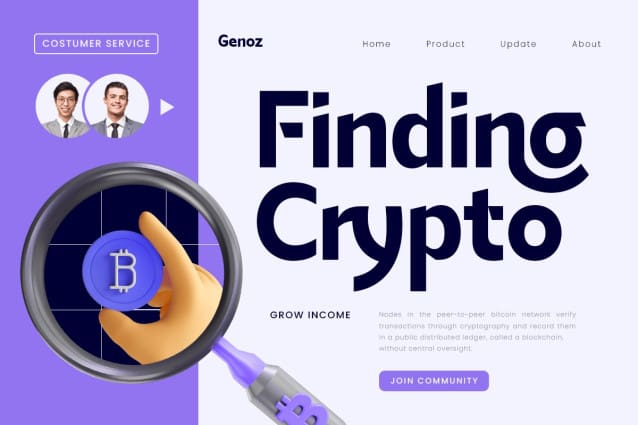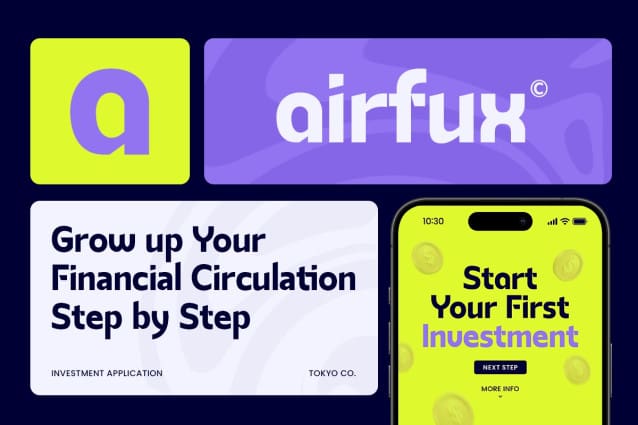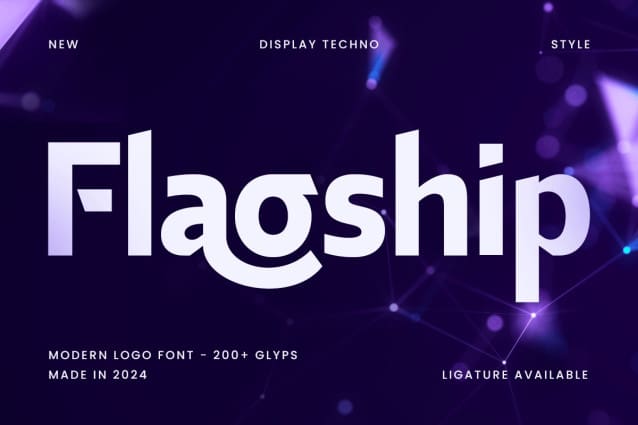
Flagship Font
Flagship Font is a modern logo font designed for sleek and elegant designs. With its minimalist approach and bold lines, this font is ideal for creating professional and striking brand identities. Flagship’s simplicity makes it highly versatile, allowing it to seamlessly integrate into a variety of projects, from Logos to Corporate Branding, ensuring your visuals remain crisp and eye-catching.
Designed with modern aesthetics in mind, Flagship Font is perfect for businesses and brands looking for a clean, contemporary look. Its geometric structure and soft curves give it a professional yet approachable feel, making it suitable for a wide range of industries. Whether you’re creating a new logo, developing a visual identity, or crafting elegant branding assets, Flagship’s modern design will take your project to the next level. Its balanced shapes and smooth strokes ensure clarity and impact across all media.